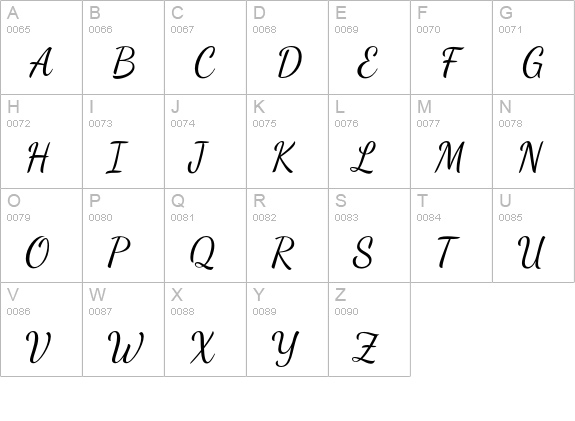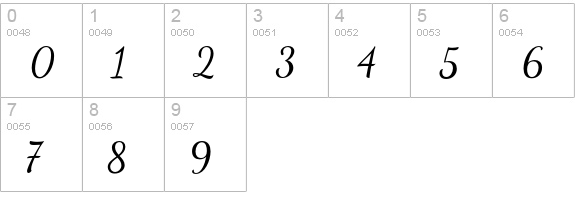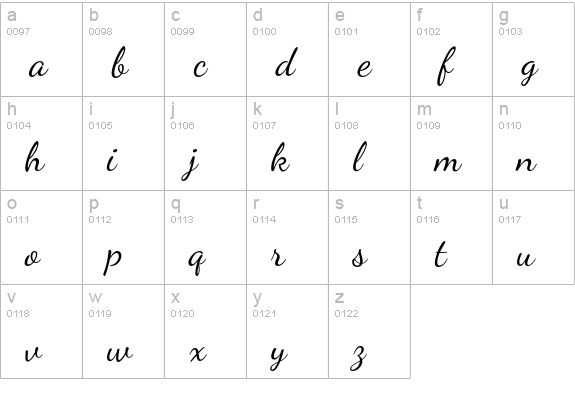
Dancing Script OT Font Details
Dancing Script OT is a delightful and lively font that exudes an air of elegance and playfulness. With its graceful curves and fluid strokes, this font brings a sense of movement and rhythm to any design project. Whether you're creating invitations, greeting cards, or logos, Dancing Script OT adds a touch of charm and sophistication. Its versatility allows it to be used in both formal and informal contexts, making it a perfect choice for any occasion. What makes Dancing Script OT even more enticing is that it is available for free! That's right, you can freely download this font at FontsMarket.com. This means that you can start using it in your projects without any hassle or cost. Designed with creativity in mind, Dancing Script OT offers a wide range of character variations, from lowercase letters with swashes to uppercase letters with elegant flourishes. The font also includes a selection of ligatures and alternates, giving you even more options for customization. With its smooth and flowing lines, Dancing Script OT is guaranteed to add a touch of elegance and sophistication to any design. So why wait? Go ahead and download this beautiful font for free at FontsMarket.com and let your creativity dance across the page!